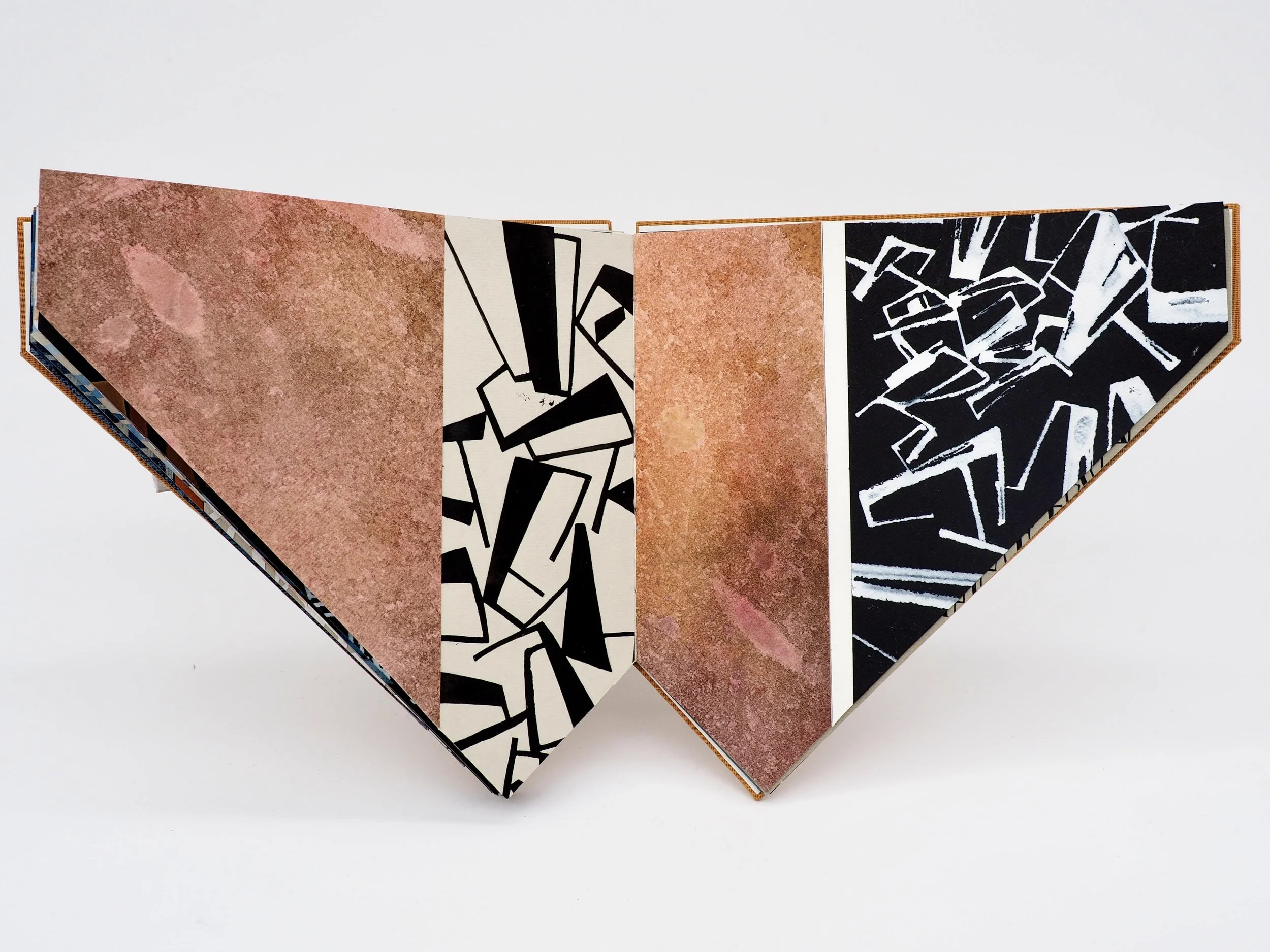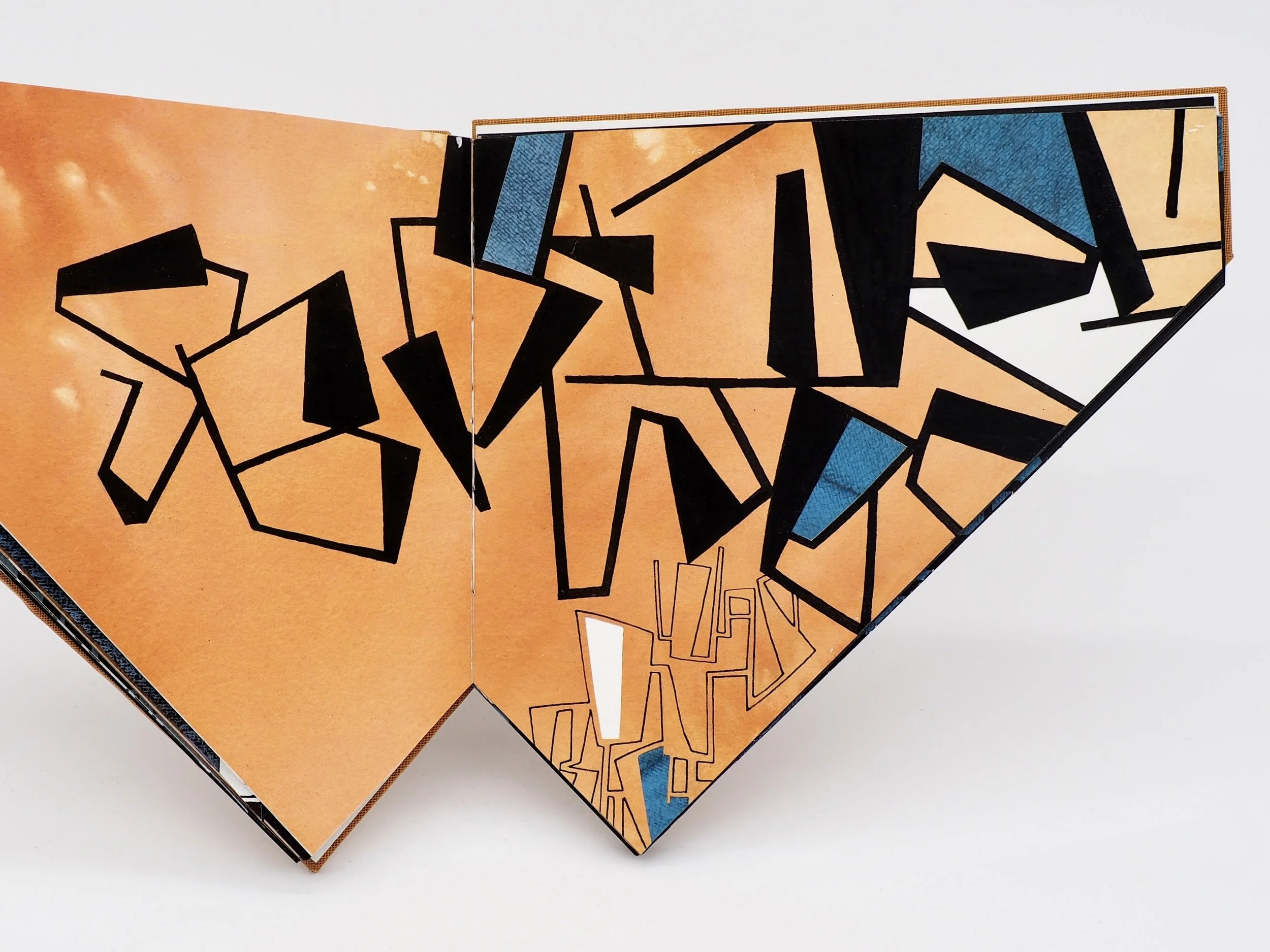
NADINE WEHRLI | Book of Mephistopheles
ARTIST | Nadine Wehrli
BASED IN | Weimar, Germany
TITLE | Book of Mephistopheles
SIZE | 220 × 210 mm
MEDIUM | MBM Arches, gouache, acrylic paint
Book design for Mephistopheles from Faust I by Goethe. This 40-page linen-bound book features original quotations from Mephisto. The character is interpreted graphically through specially designed graphic letterforms and colour interpretations that accompany the text, creating a visual system that reflects Mephisto’s shifting presence within the narrative. This book is a feat of engineering.
Nadine Wehrli
Nadine Wehrli, based in Weimar, Germany, is a trained theatre painter and art therapist who discovered her passion for calligraphy a few years ago. She works at the intersection of traditional and modern calligraphic styles, creating pieces that balance precision with creativity. Nadine’s artistic practice spans a range of materials and approaches, allowing her to develop unique works that reflect both craftsmanship and exploration. Her current focus includes interpreting classical works and developing contemporary forms of expression that weave together history and modernity.